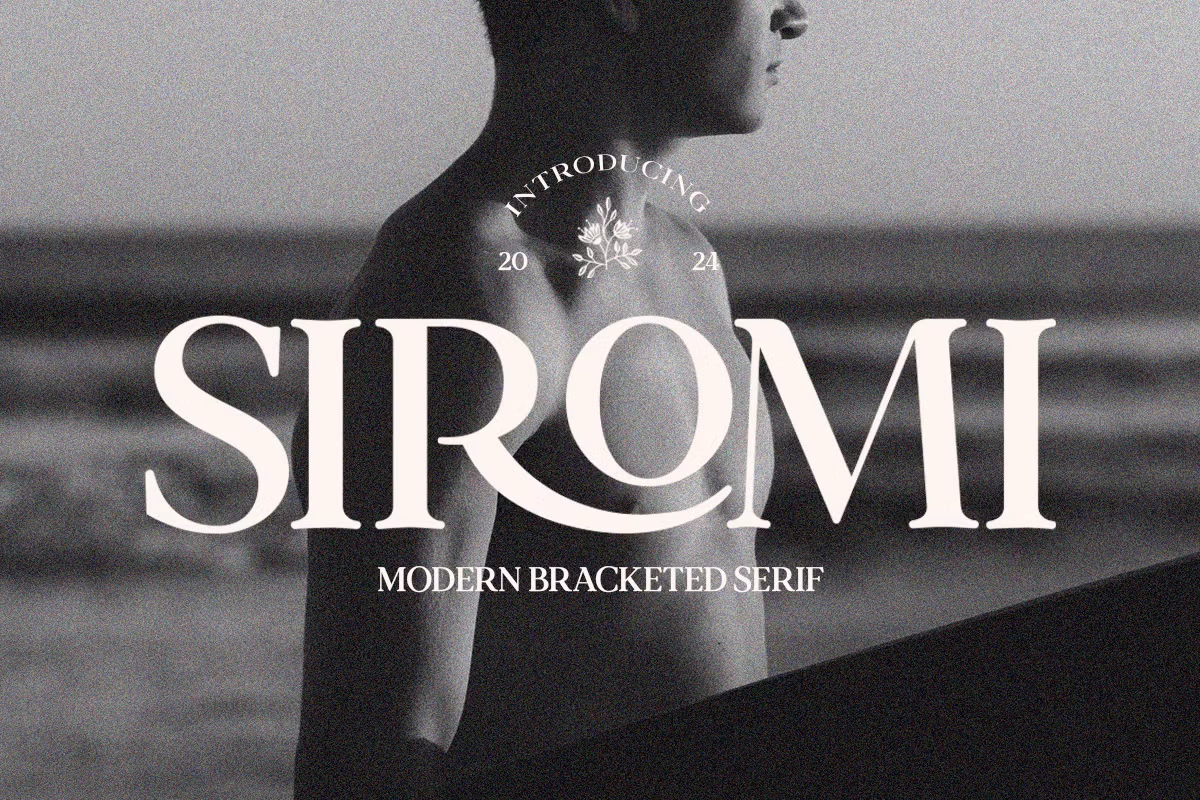
You must purchase this font for commercial use. However, you can download TBJ Siromi Modern Serif Font Free Download for testing purposes. TBJ Siromi is a sleek and modern serif font designed to bring a fresh, contemporary touch to your typography. With its sharp edges, elegant serifs, and sophisticated letterforms, this font is ideal for branding, editorial designs, high-end marketing, product packaging, and more.
The font combines the timeless elegance of serif typography with a modern, geometric twist, making it suitable for a wide range of creative projects. Whether you're designing a stylish logo, a professional website, or an upscale magazine layout, TBJ Siromi Modern Serif Font Free Download gives you the flexibility and sophistication needed to elevate your design work.